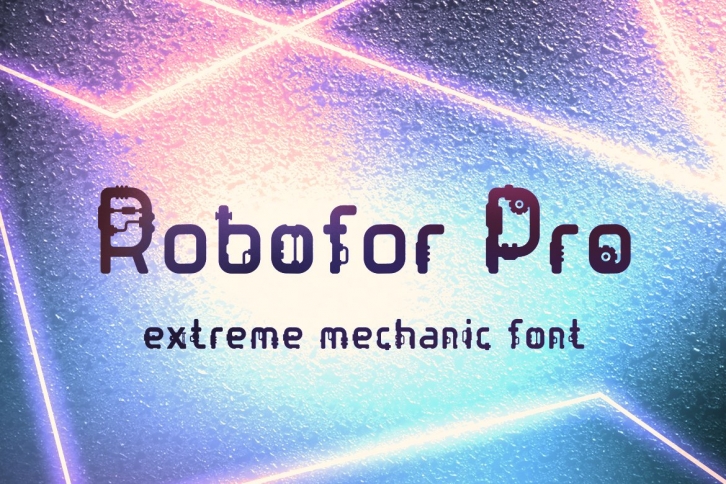
Robofor Pro font is made in the style of mechanisms. It has uppercase and lowercase letters, numbers, punctuation, several alternates for each letter and special character set. The font will look great in the design of scientific and high-tech presentations, and also add brightness and unusualness to simple things.
- uppercase letters
- lowercase letters
- many alternates for each letter
- numbers & punctuation
- special character set